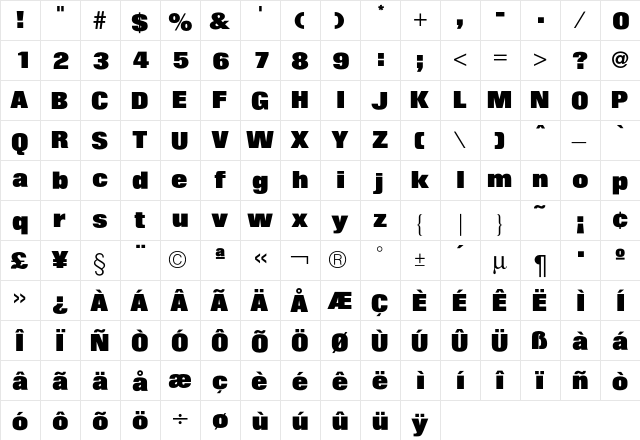
FolioICG XBold
Design Context for FolioICG Typeface
FolioICG is a composed and adaptable typeface that performs quietly and consistently across a wide range of design contexts. Its bold stroke weight gives it real presence on the page.